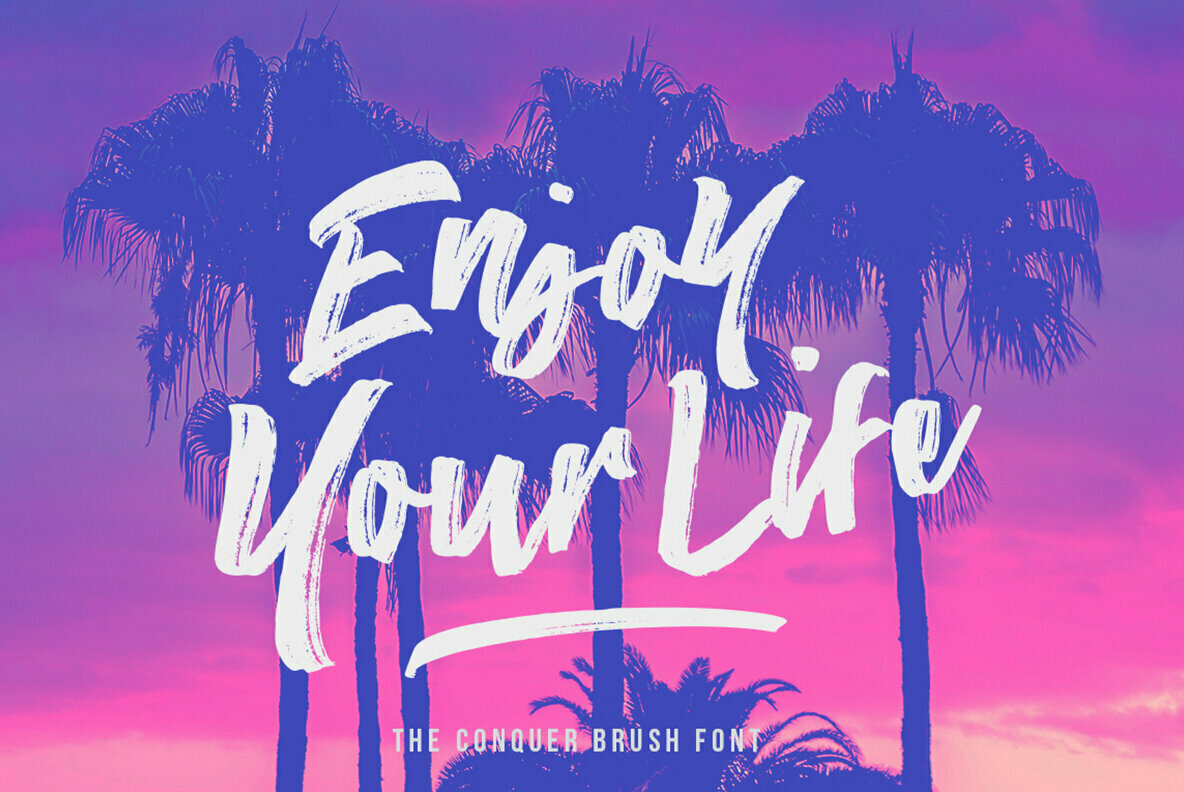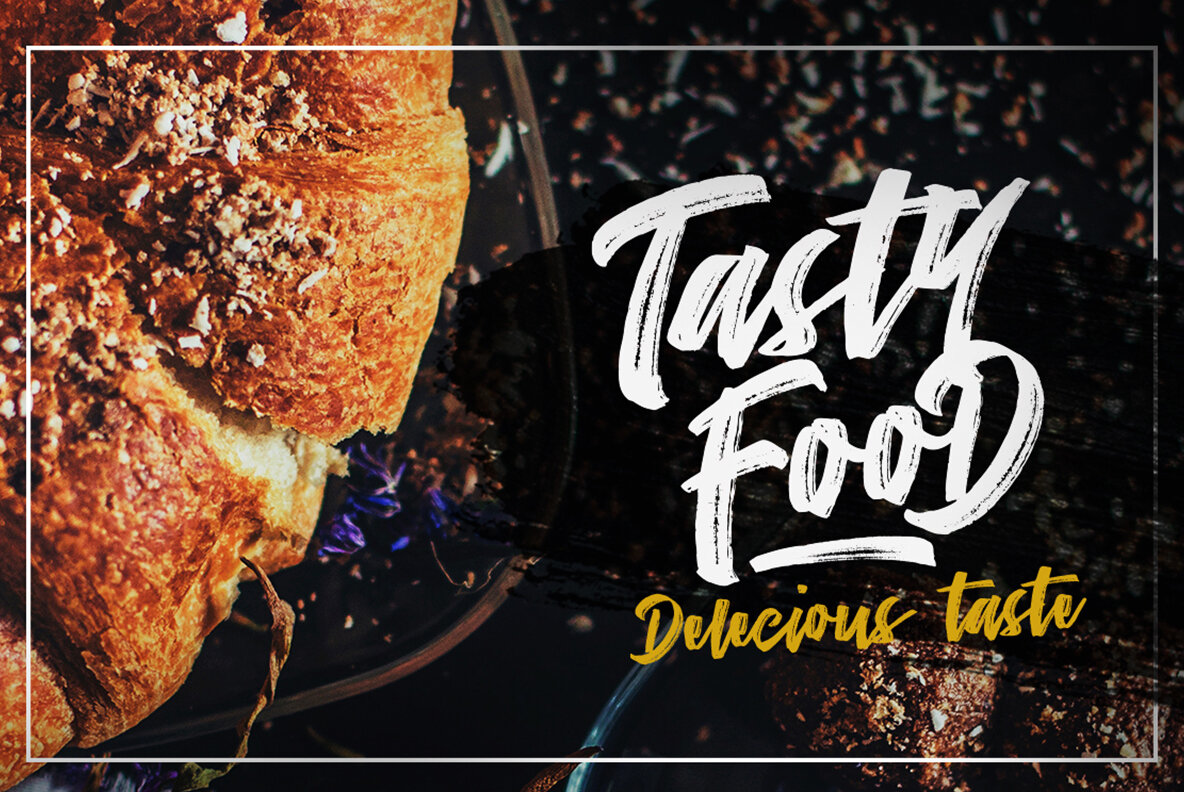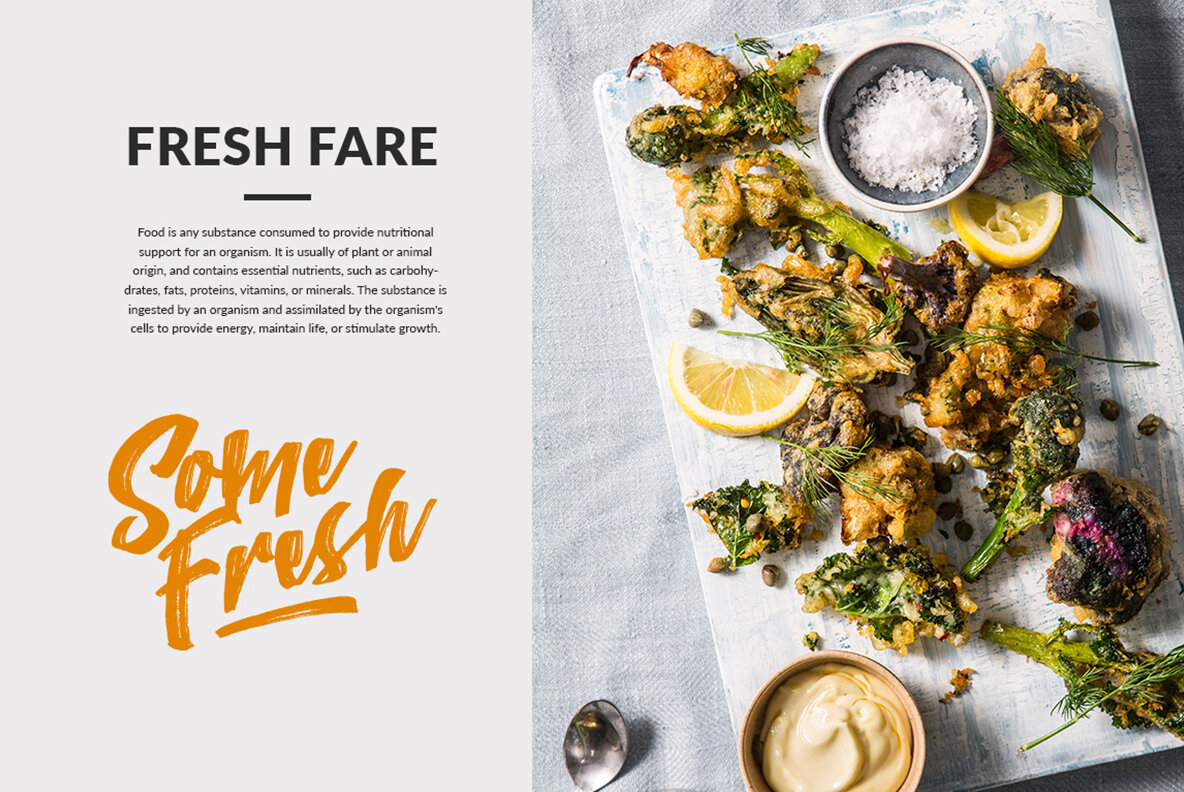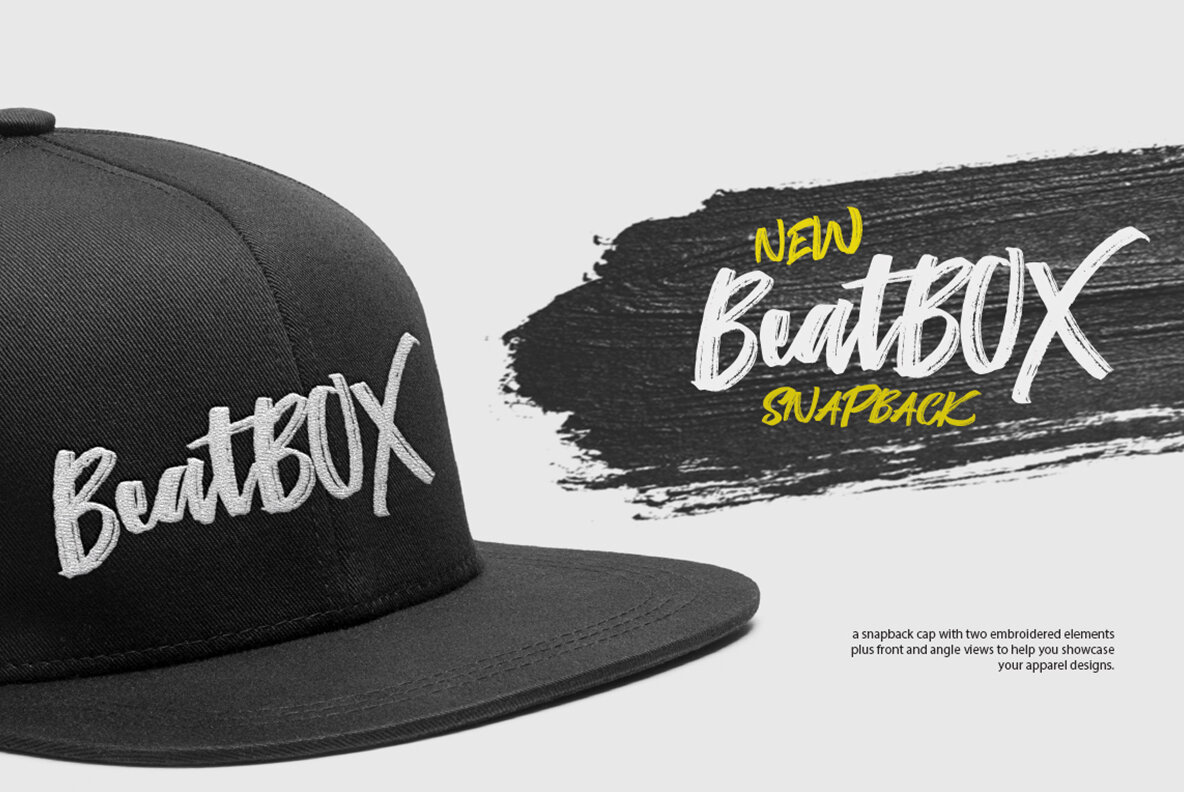
The Conquer Font
Embrace the art of typography with The Conquer, a brush typeface that embodies authenticity through its dry brush imperfections and lively baseline. Perfectly paired with a complementary marker font, it provides a dynamic duo for various creative projects. This typeface is ideal for generating impactful logos, expressive handwritten quotes, stylish product packaging, and engaging social media content. It's also perfect for headers, posters, and inviting greeting cards.The Conquer: Expressive Brush Typeface